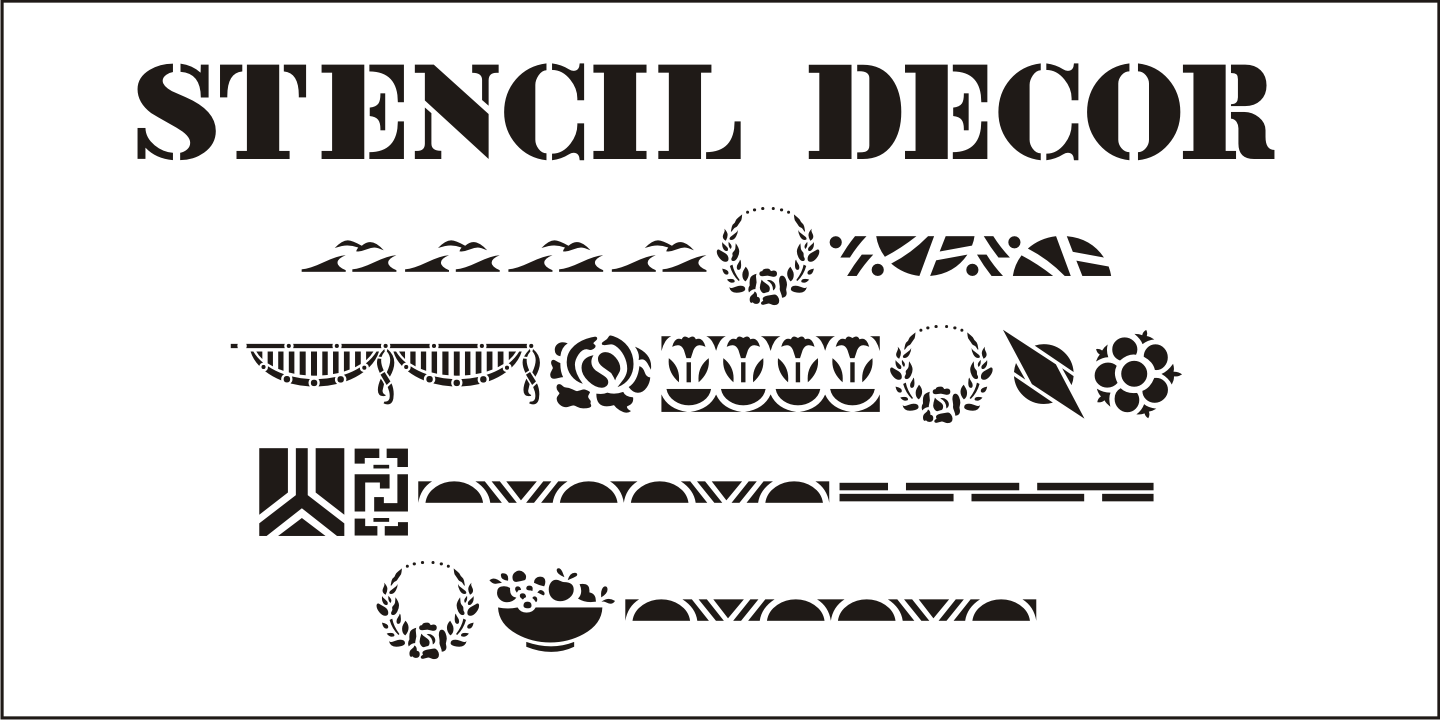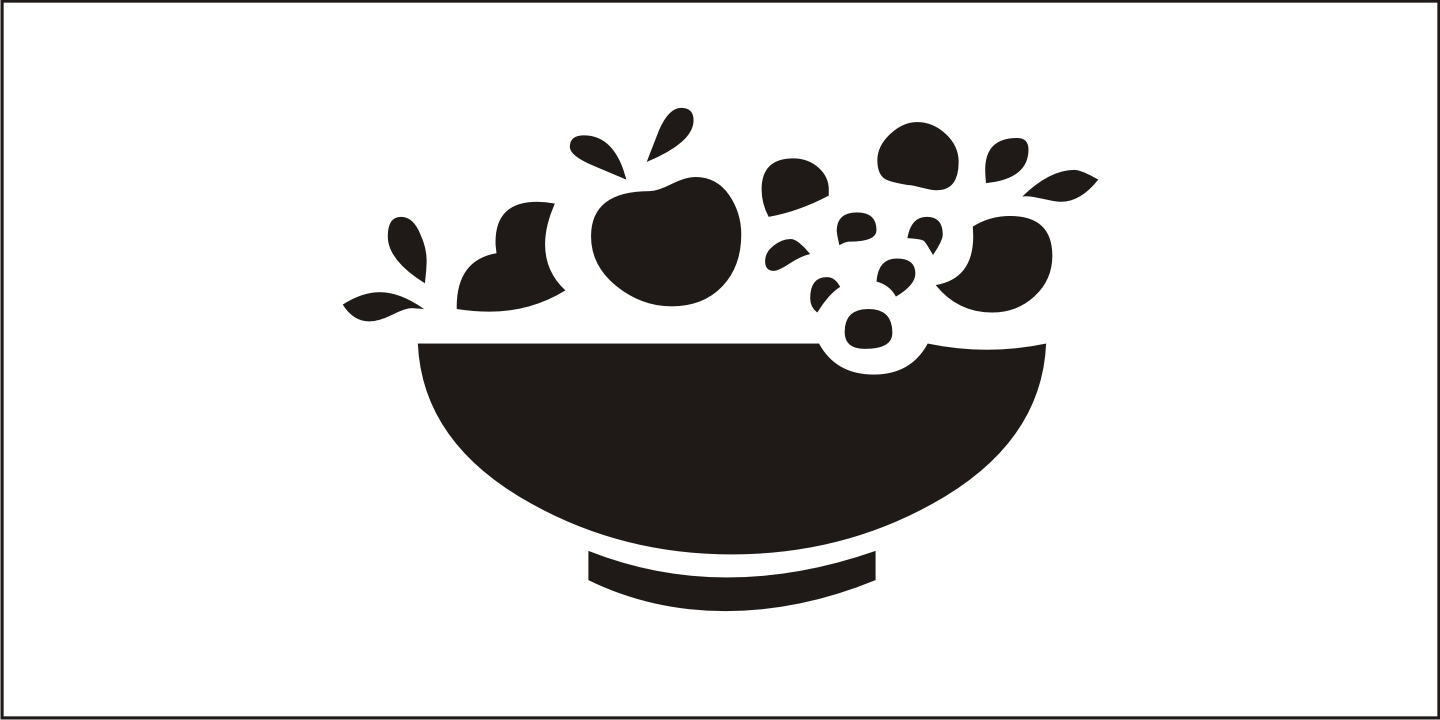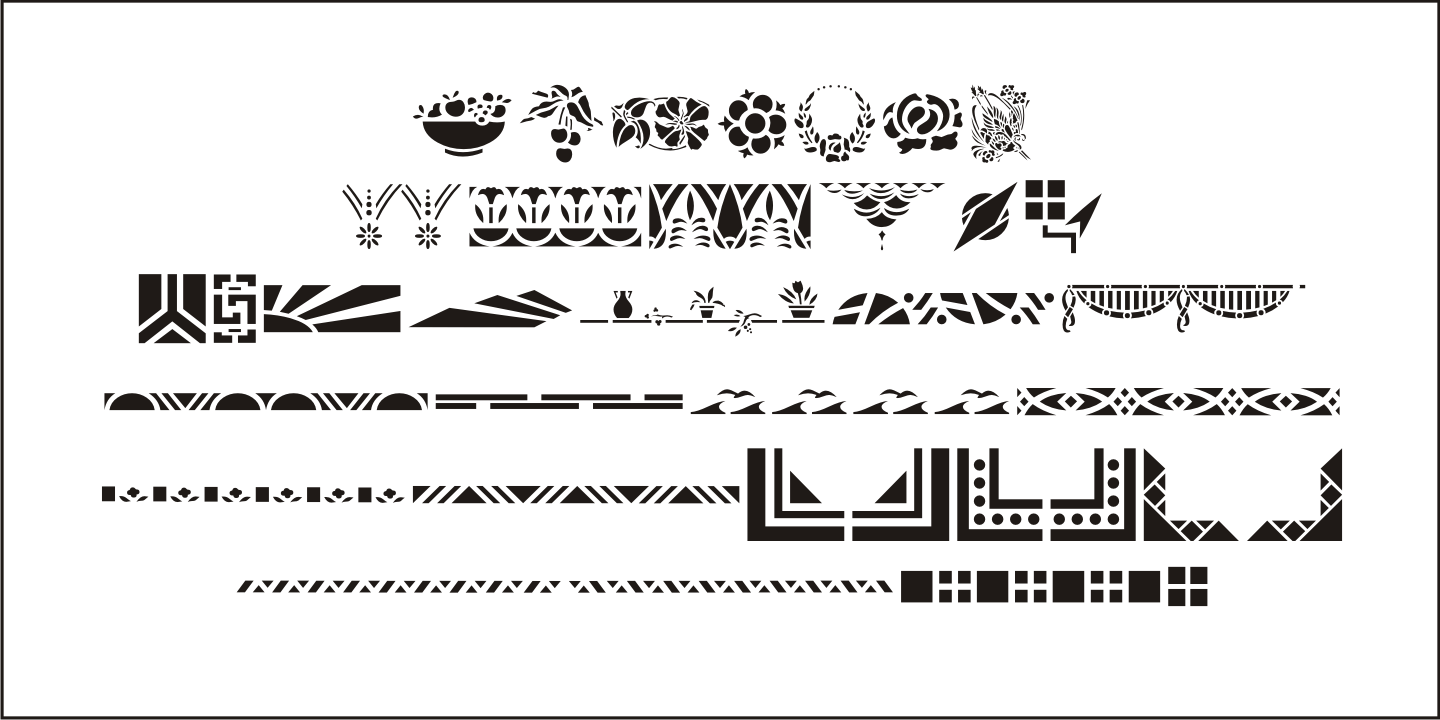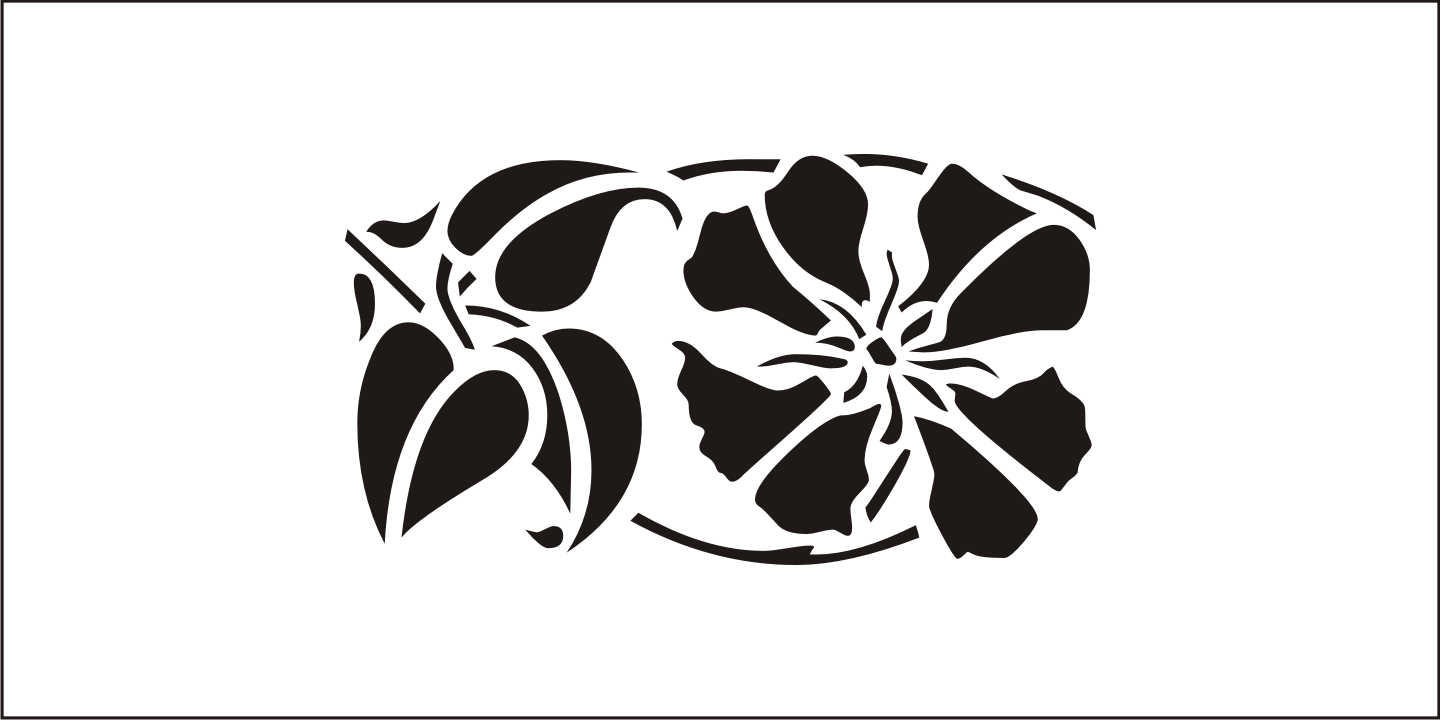
Stencil Decor
Stencil Decor JNL is loaded with all kinds of antique designs, embellishments and borders to work well alongside your favorite stencil lettering to create a totally retro look.
Of course, these designs also make beautiful additions to many other kinds of print and craft projects.
Stencil Decor JNL Regular by Jeff Levine Fonts